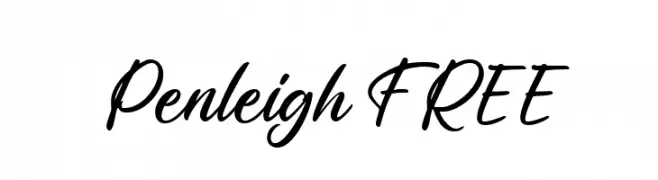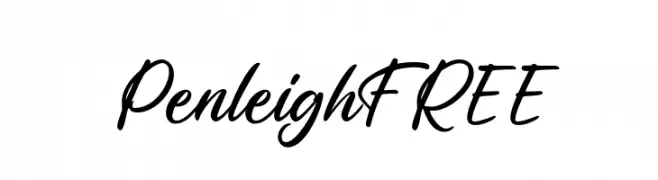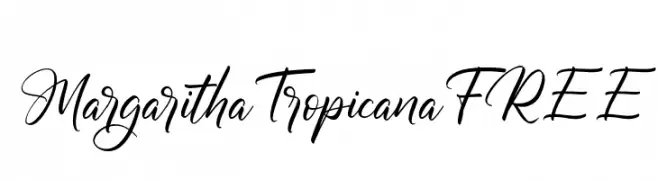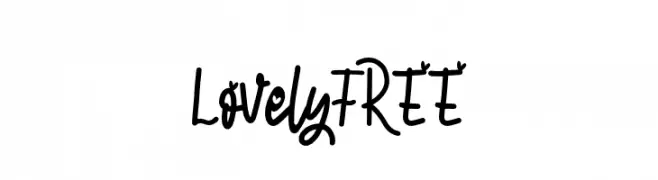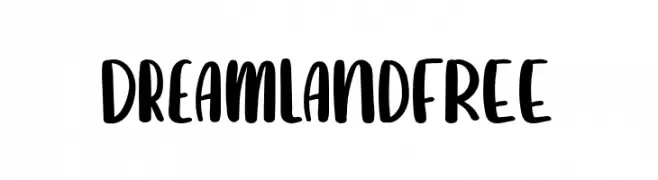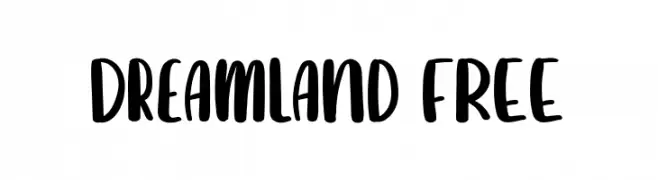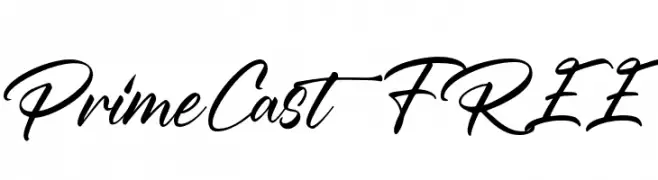
A dynamic and elegant script font with fluid, cursive strokes.
A cursive, handwritten font with elegant, flowing strokes and medium contrast.
An elegant script font with flowing, cursive letterforms and a classic calligraphic style.
A modern, elegant script font with flowing cursive style and graceful swashes.
A playful and whimsical handwritten font with fluid, flowing letterforms.
A playful, handwritten font with bold, dynamic characters and whimsical details.
A playful, bold handwritten font with smooth curves and a slightly condensed style.
A bold, playful handwritten font with thick strokes and rounded edges.
A dynamic and elegant script font with flowing, cursive letterforms.
A flowing, cursive script font with elegant, connected characters.